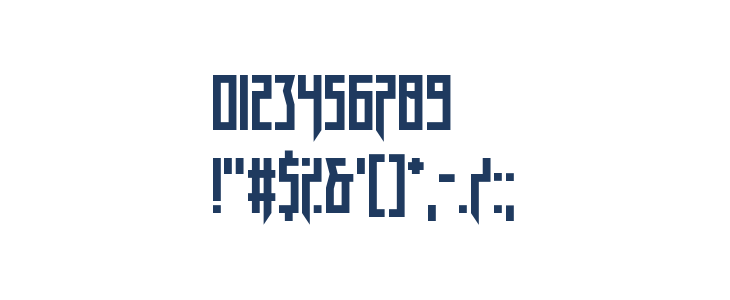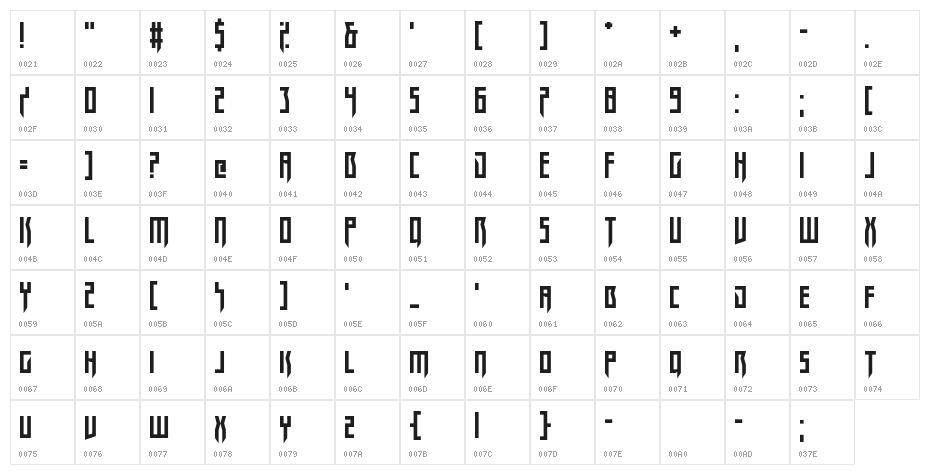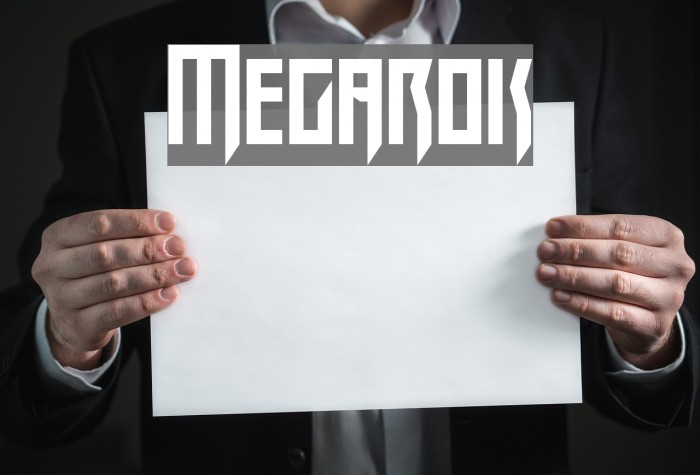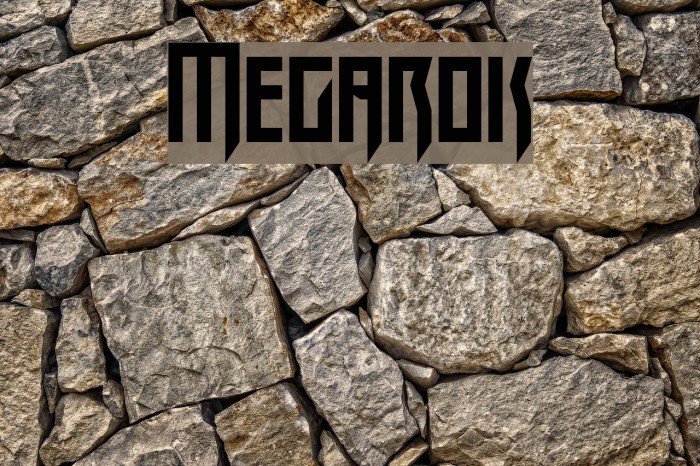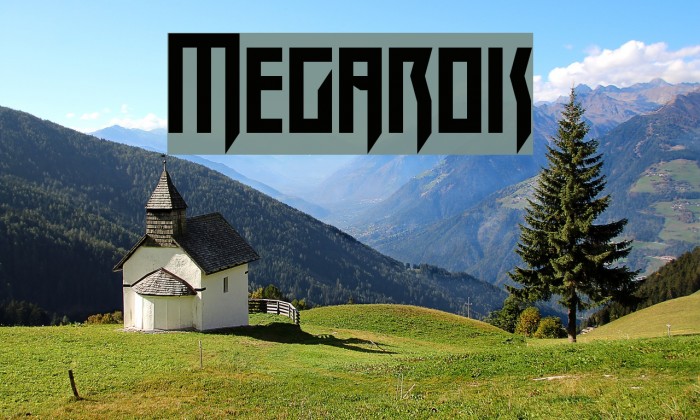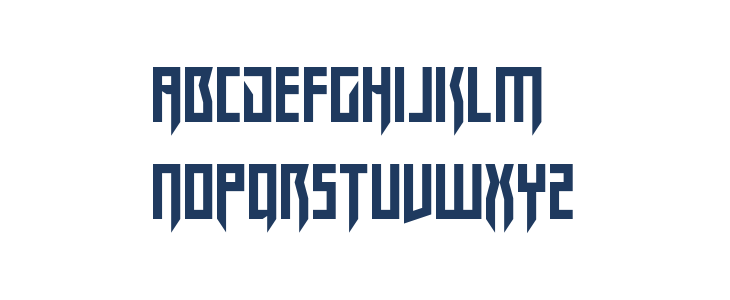
Megarok Font
Megarok Description
This font features a bold and angular design, characterized by sharp edges and geometric shapes. The uppercase and lowercase letters maintain a consistent height, creating a uniform appearance. The numerals and special characters follow the same angular style, enhancing the overall cohesive look. The font's structure is reminiscent of futuristic or sci-fi themes, with a strong emphasis on vertical and horizontal lines. Its unique style makes it stand out, suitable for projects that require a modern and edgy aesthetic.
MEGAROK UPPERCASE
MEGAROK LOWERCASE
MEGAROK OTHER CHARS
| Proposed Projects | Ideal for sci-fi themed designs, video game titles, posters, and branding that requires a modern, edgy look. |